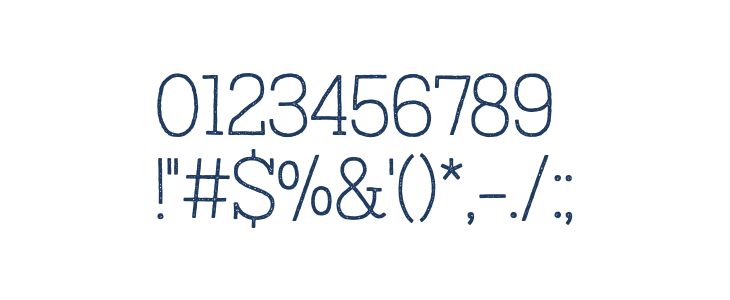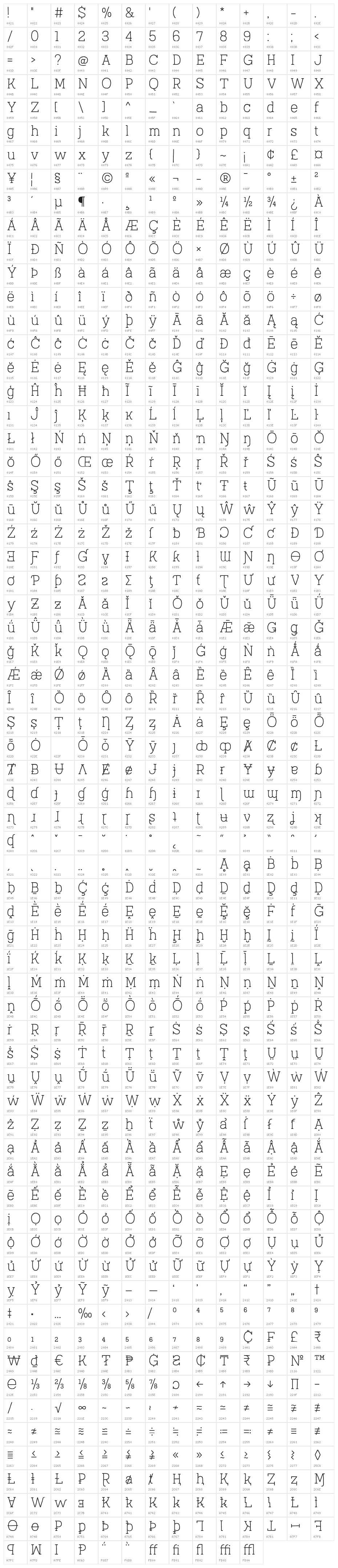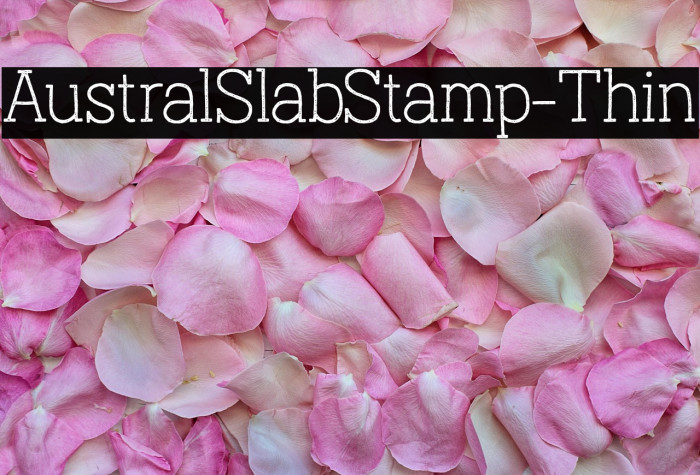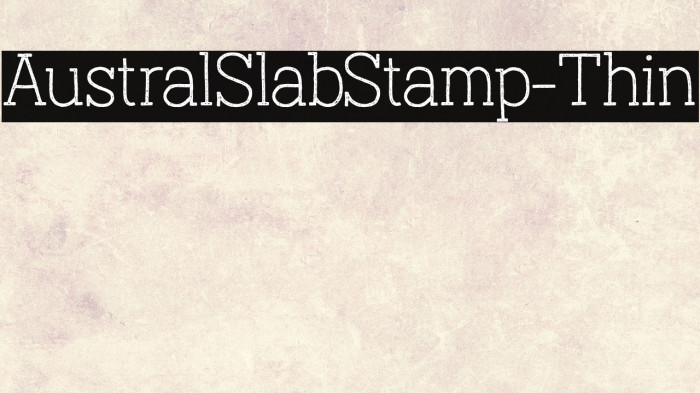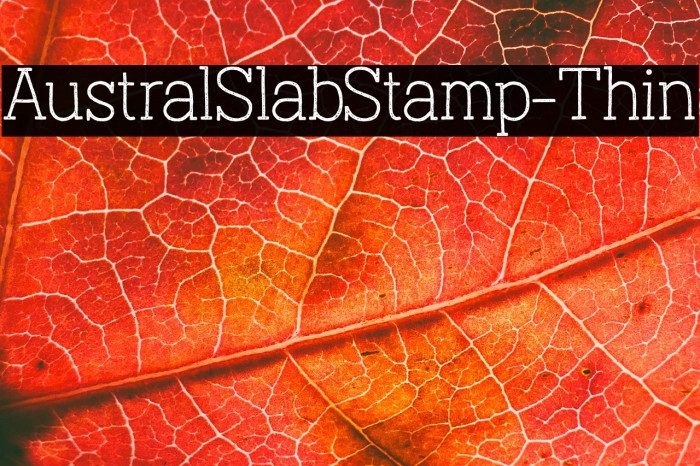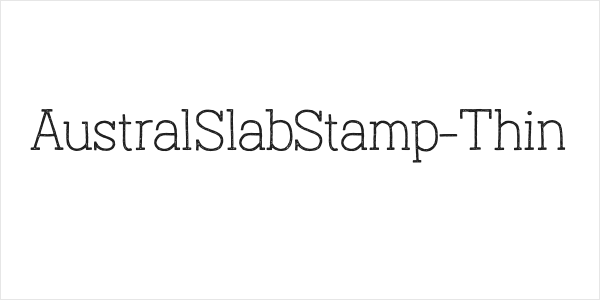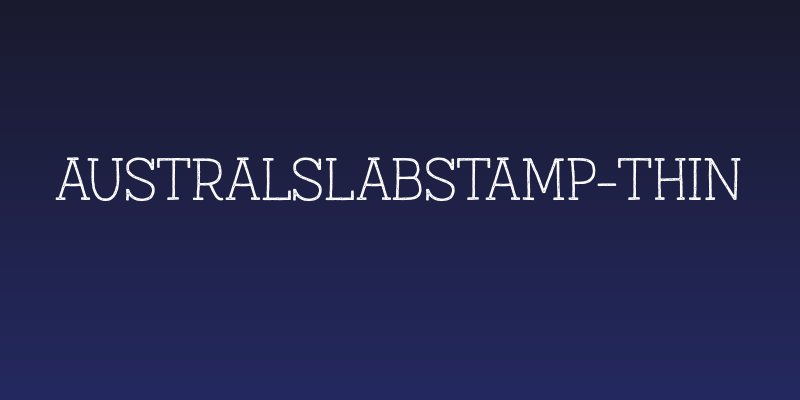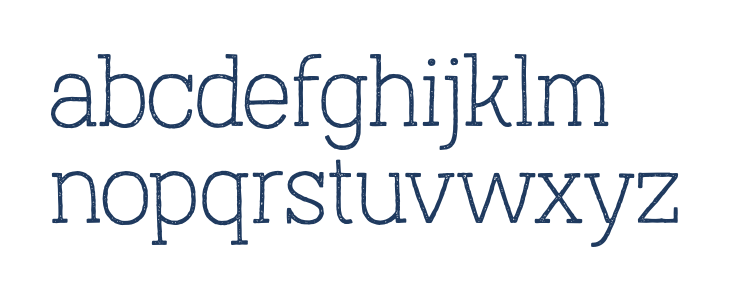
AustralSlabStamp-Thin Font
AustralSlabStamp-Thin Description
This font features a distinct slab serif style with a thin, stamped appearance. The characters are well-defined with a slightly distressed texture, giving it a vintage and industrial feel. The uppercase letters are bold and commanding, while the lowercase letters maintain a consistent style with a touch of elegance. Numerals are clear and easy to read, making them suitable for various applications. The special characters retain the same textured effect, ensuring a cohesive look across all glyphs. This font's unique style makes it ideal for projects that require a blend of modern and rustic aesthetics.
Overall StyleVintage
Proposed ProjectsIdeal for branding, packaging, posters, and editorial design that require a vintage or industrial touch.